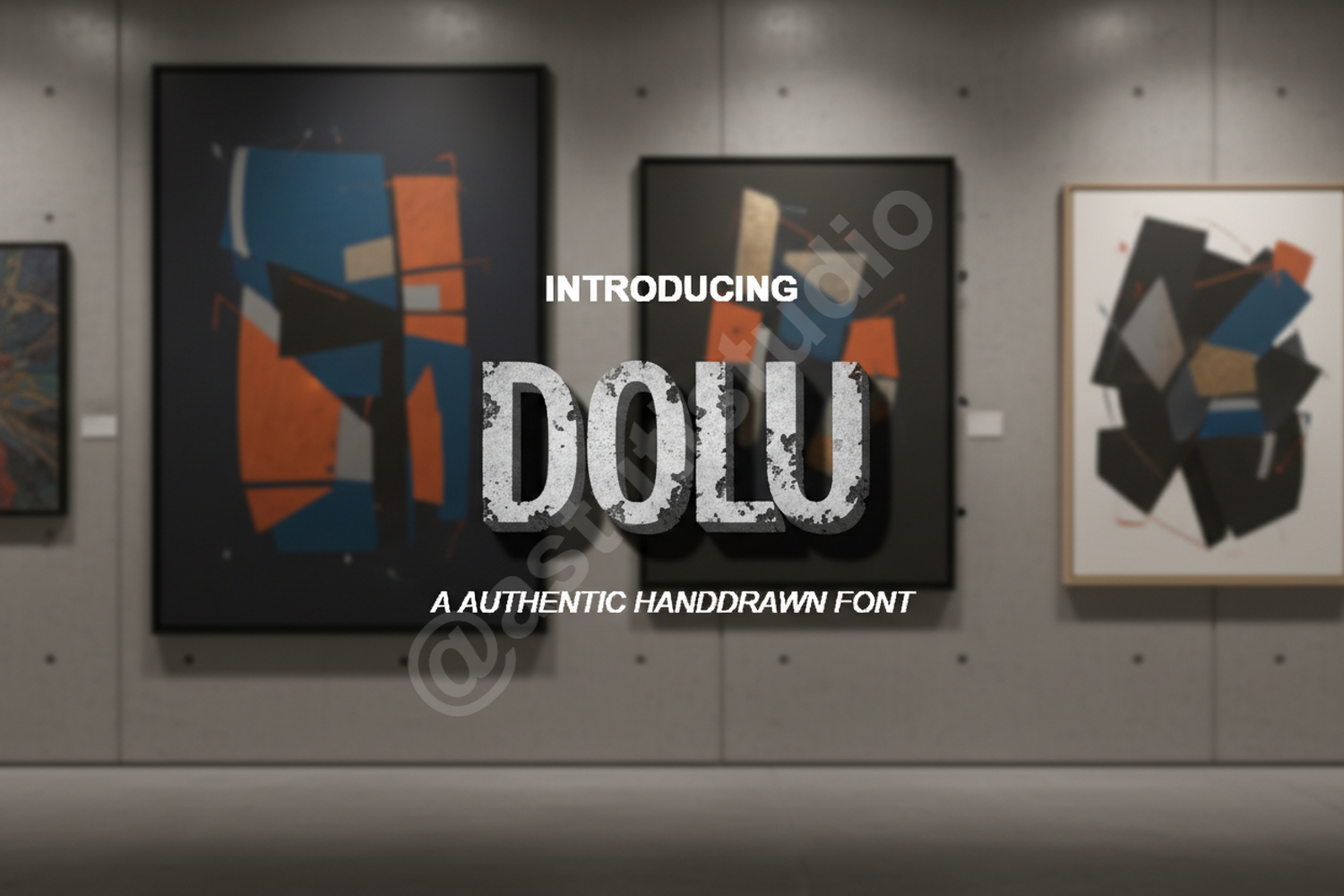
Dolu - Sophisticated Modern Geometric Sans
Dolu
Introduction:
Introducing Dolu, a premium geometric sans serif font that balances contemporary minimalism with timeless elegance. Designed for creators who demand precision and style, Dolu offers a clean aesthetic that enhances any professional project. Whether you are building a brand from scratch or refining a high-end publication, this font provides the versatile edge needed for modern design.
Optimized Use Cases:
- Professional Branding and Corporate Identity
- Minimalist Logo Design and Wordmarks
- Editorial Layouts and Magazine Typography
- Modern Website Headers and UI/UX Design
- Luxury Packaging and Product Labeling
- High-Impact Social Media Graphics and Advertising